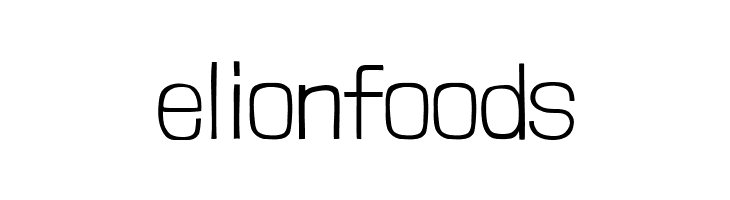
Londrina Solid Black Font
A bold, solid font with a strong, modern presence.
Londrina Solid Light Font
A clean, modern font with a geometric and solid design.
Londrina Solid Regular Font
A bold, solid font with uniform strokes and rounded edges, ideal for impactful headlines.
Londrina Solid Font
A bold, solid font with a modern and impactful style.
Londrina Solid Thin Font
A modern, geometric font with thin, elongated characters.
Londrina Outline Font
A modern, outline-style font with geometric shapes and consistent stroke width.
LondrinaBlack-Regular Font
A bold, rounded font with thick strokes and a playful, assertive style.
Londrina Sketch Font
A playful, hand-drawn font with sketch-like outlines and irregular strokes.
Londrina Shadow Font
A playful, bold font with a unique shadow effect for a dynamic look.
LondrinaBook-Regular Font
A playful, hand-drawn style font with bold, rounded characters.
Londrina Shadow Regular Font
A bold, playful font with a unique shadow effect and outlined characters.
Londrina Outline Regular Font
A playful, outlined font with hollow letterforms and rounded edges.
Londrina Sketch Regular Font
A playful, sketch-like font with hand-drawn, irregular outlines.
Londrina Outline Regular Font
A playful, modern outline font with bold, hollow letterforms.
LondrinaSolid-Regular Font
A bold, playful font with a modern, slightly quirky style.
LondrinaSketche-Regular Font
A playful, sketch-like font with a hand-drawn, artistic feel.
LondrinaThin-Regular Font
A playful, thin, and geometric font with a modern aesthetic.
LondrinaShadow-Regular Font
A bold, playful font with a distinctive shadow effect.
LondrinaOutline-Regular Font
A playful, bold outline font with a modern and creative style.